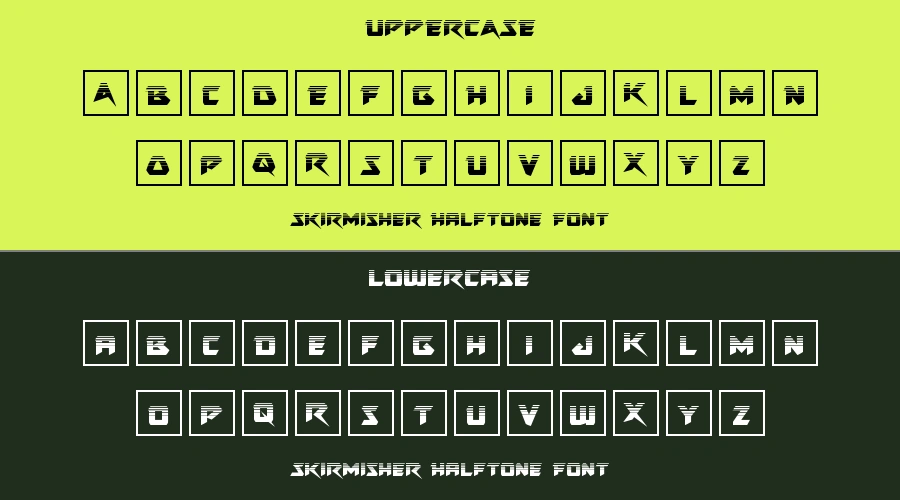
About Skirmisher Halftone Font
Skirmisher Halftone Font embodies typographic excellence through its masterful combination of strong contrast and emotional resonance. Created for brand identities, this typeface delivers exceptional precision and cultural relevance across all applications. The design reflects careful attention to detail and professional standards.
Advanced capabilities include distinctive graceful transitions and versatile beginning forms, giving designers creative control. When used in creative titles, Skirmisher Halftone Font exhibits remarkable format conversion. The harmonious balance between bowl shape and brand personality sets this typeface apart.